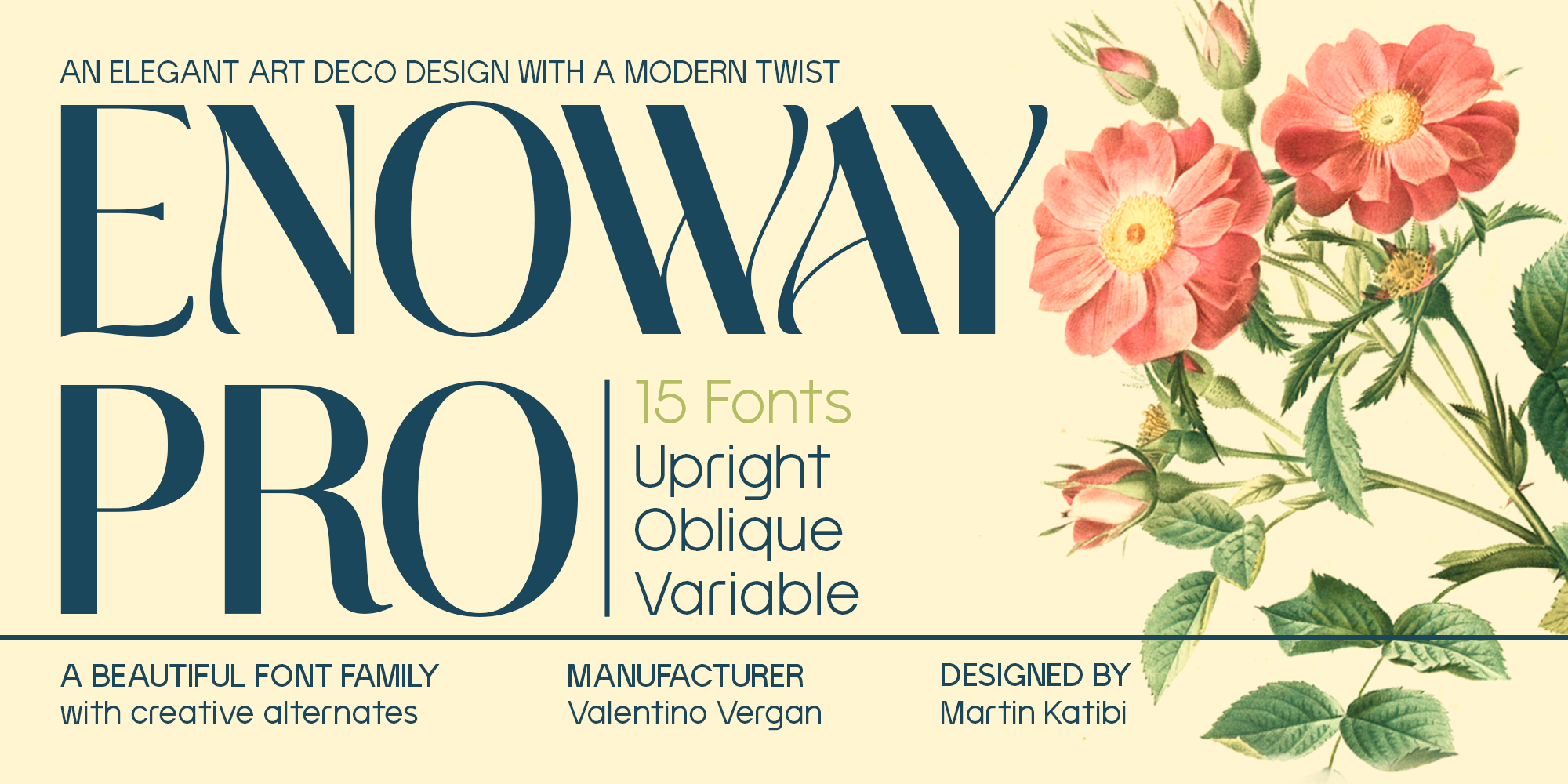
The Enoway Pro Font is perfect for professional corporate branding, modern business communications, sleek website designs, executive presentations, financial reports, legal documents, consulting firm materials, and premium service offerings. This sophisticated typeface excels in projects for law firms, consulting companies, financial institutions, tech corporations, and professional service providers requiring authoritative typography that conveys expertise, reliability, and contemporary business excellence.
What makes the Enoway Pro Font exciting is its masterful balance of professional authority and modern accessibility in corporate environments. The font features refined letterforms with optimized proportions and subtle contemporary details that ensure exceptional readability across all business applications. Its professional character and versatile design make it perfect for organizations seeking to establish credibility and trust while maintaining a forward-thinking, innovative image. The font's executive presence and technical precision create immediate confidence in professional contexts.
The Enoway Pro Font family includes comprehensive professional variations: Thin, Light, Regular, Medium, Semi Bold, Bold, and Black weights, each available in upright and italic styles. Each weight maintains superior legibility while offering extensive language support and advanced OpenType features for complex business documentation. The family also includes small caps, professional numerals, and corporate symbols essential for executive-level typography.
Whether you're developing corporate brand identities, creating professional marketing materials, or designing executive communications, the Enoway Pro Font Free Download provides the ultimate solution for projects requiring authoritative business typography. This exceptional typeface brings genuine professional credibility to corporate design work, making it an indispensable resource for designers working with business clients, professional services, and executive-level communications.